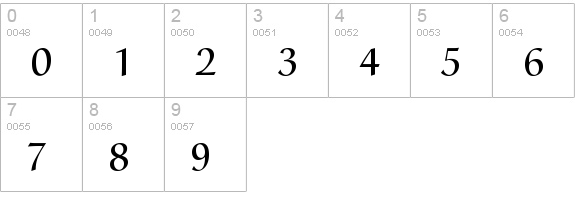
AlcuinEF-Light is a refined, elegant variant in the AlcuinEF typeface family \xE2\x80\x94 well suited to elegant body text, refined sub-headings, and luxury branding.
AlcuinEF-Light is a beautifully crafted font that exudes elegance and sophistication. Its slender and graceful letterforms make it perfect for adding a touch of refinement to any design project. This font is versatile and can be used for a wide range of applications, from invitations to branding materials. What makes AlcuinEF-Light even more appealing is that it is available for free download at FontsMarket.com. This means that you can easily access this stunning font without any cost, making it a valuable addition to your font collection. Whether you are a designer looking for a new typeface to elevate your creations or someone in need of a stylish font for personal projects, AlcuinEF-Light is sure to impress with its timeless beauty and accessibility.